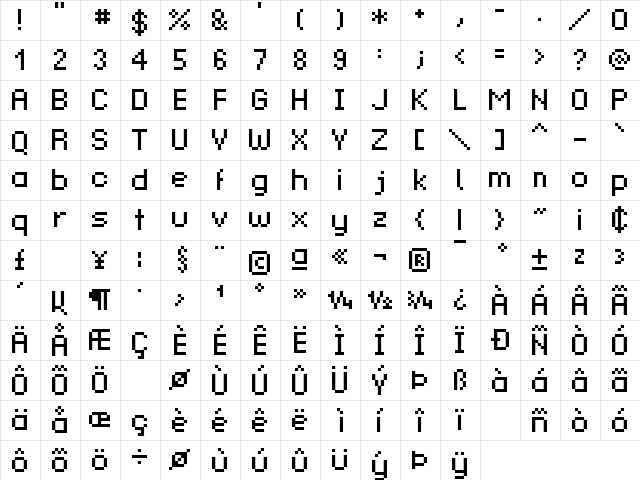
Bavaria Extended Regular
Design Context for Bavaria Extended Typeface
Bavaria Extended takes a measured approach to typography — its balanced proportions and neutral character make it a reliable workhorse for both digital and print work.